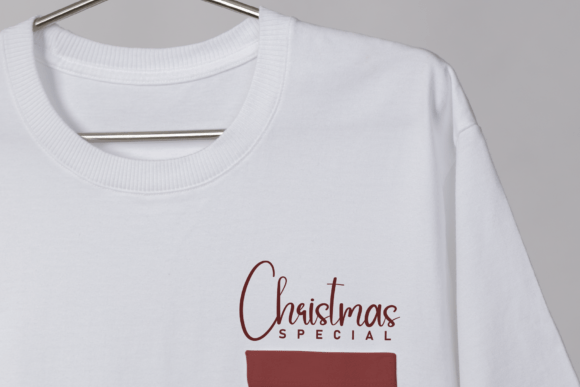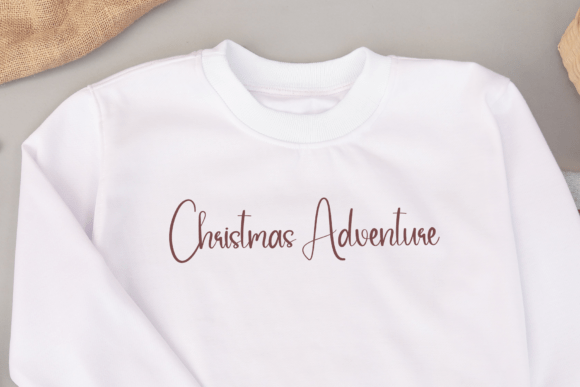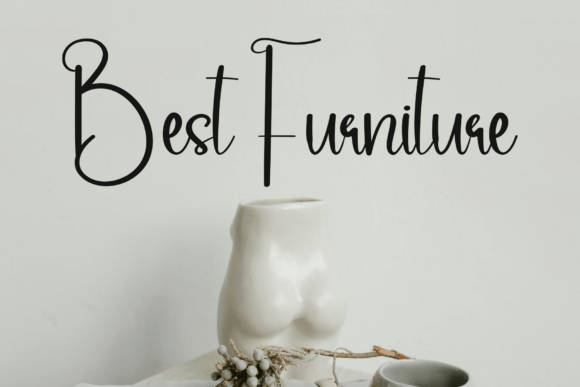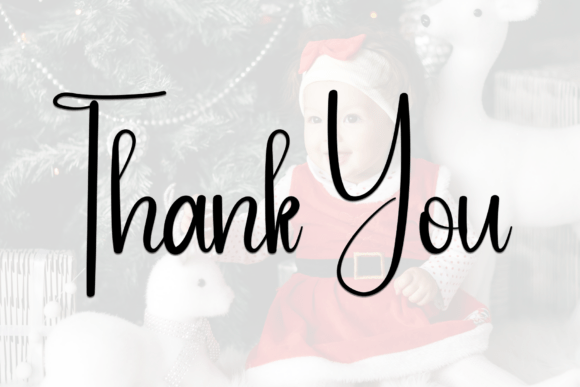
The Perfect Blend of Luxury and Casual: Baby Christmas Font
Have you ever been working on a design project and suddenly, the perfect font pops into your head? Maybe it’s a childhood memory of scribbling with a favorite marker, or perhaps it’s the result of hours of browsing through font libraries. Whatever the spark, it’s that elusive feeling that drives designers to create something truly special.
For those who’ve been searching for the perfect font to add a touch of luxury and elegance to their designs, we’re excited to introduce you to the Baby Christmas Font. This beautiful, handwritten font is designed to evoke a relaxed and sporty feel, making it perfect for branding, logos, wedding supplies, greeting cards, and more. With the Baby Christmas Font, you can add a touch of sophistication to your designs without sacrificing the casual, laid-back vibe that’s so in style today.
Baby Christmas Font Key Features
- Unique Characteristics: The font features playful, cursive script with festive elements, making it perfect for Christmas-themed designs.
- Language Support: The font supports multiple languages, including English, Spanish, French, and many more, making it a versatile choice for global designs.
- Font Style: The font comes in Regular and Bold styles, allowing for flexibility in design and layout.
Baby Christmas Font Review
Overall, I think the Baby Christmas Font is a fun and festive choice for holiday projects. ✨ Its playful, handwritten feel adds a whimsical touch to any design. ✨ The font includes a range of uppercase and lowercase letters, numbers, and punctuation marks, making it versatile for use in various contexts.
- The font’s irregularities and imperfections give it a charming, handmade quality that’s perfect for DIY projects or children’s party invitations.
- The font is available in a range of sizes, making it easy to scale up or down depending on your design needs.
However, there are a few limitations to consider. ⚠️ The font’s readability can be affected by its irregularities, making it less suitable for large blocks of text or formal documents. ⚠️ Additionally, the font’s design may not be ideal for high-contrast or bright backgrounds, as the subtle details can get lost.
Overall, I think the Baby Christmas Font is a great choice for casual, creative projects, such as holiday cards, party invitations, or social media graphics. With its unique charm and playful feel, it’s sure to add a festive touch to any design.
The Baby Christmas Font is suitable for various designs and projects, including:
- Christmas cards and invitations
- Holiday-themed artwork and graphics
- Festive presentations and reports
- Playful and whimsical designs